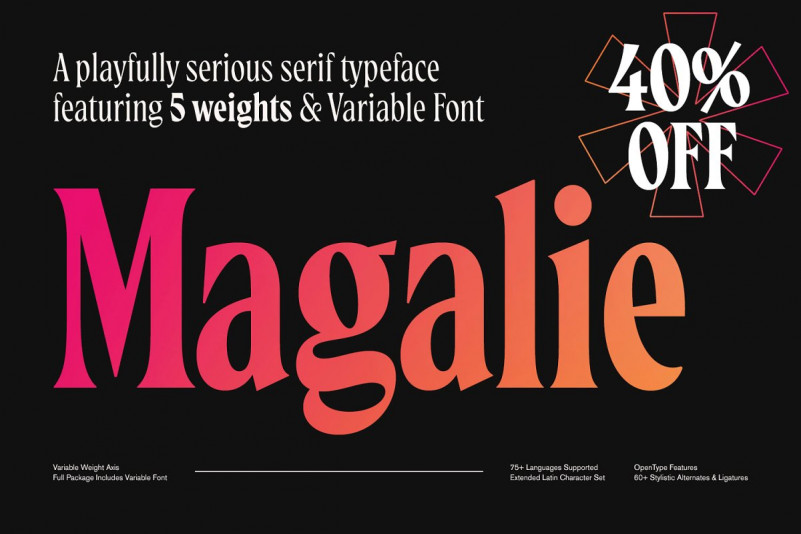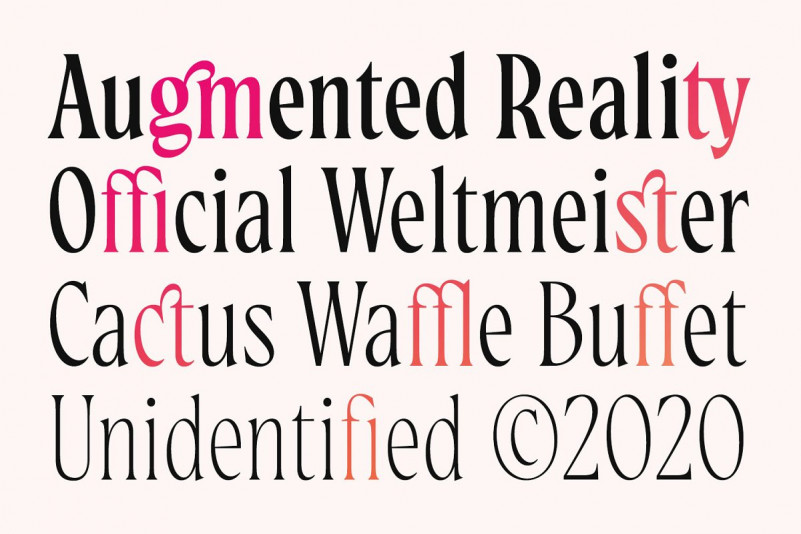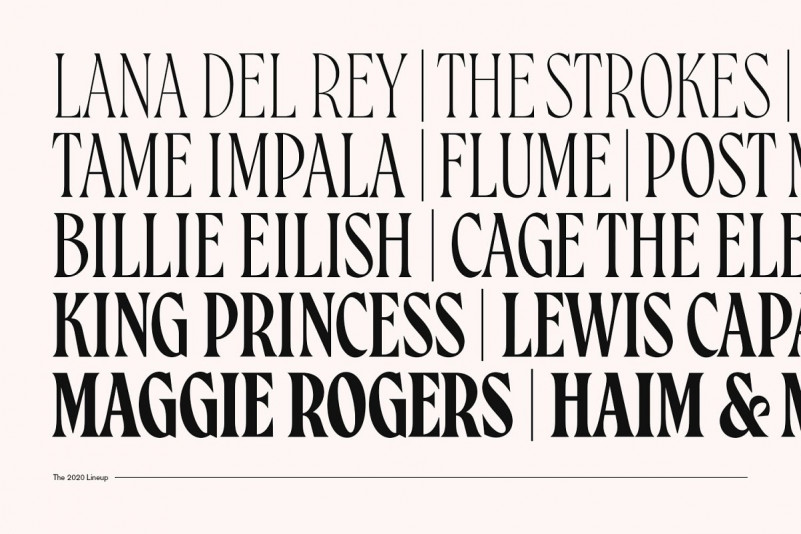
Magalie Font
Magalie is a playfully serious, yet seriously playful serif typeface. Its fairly narrow width and sharp edges make it most effective when used at large sizes, for logotypes or headlines.